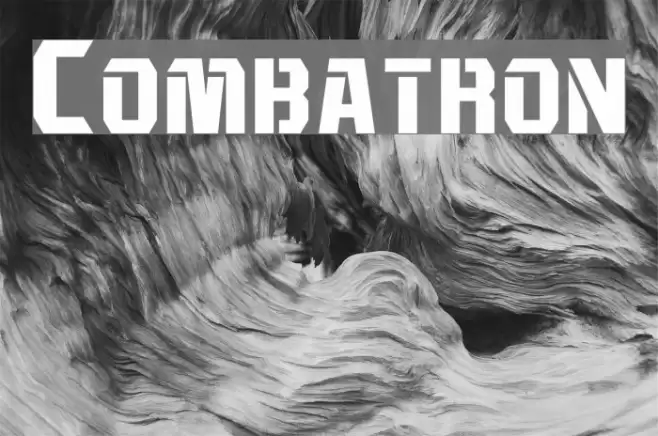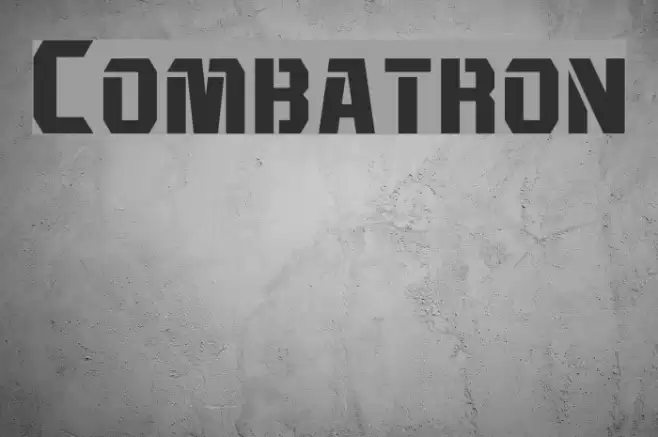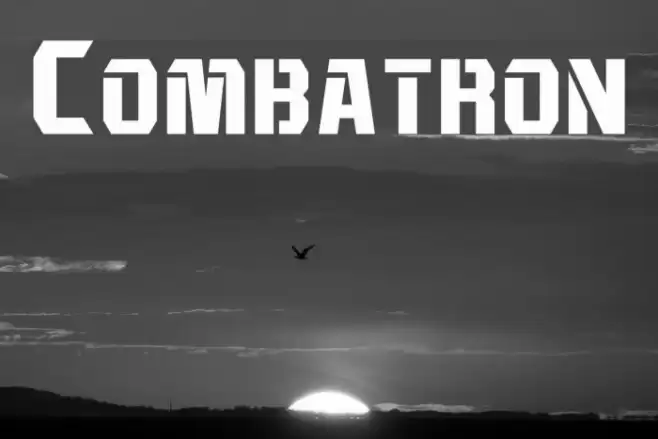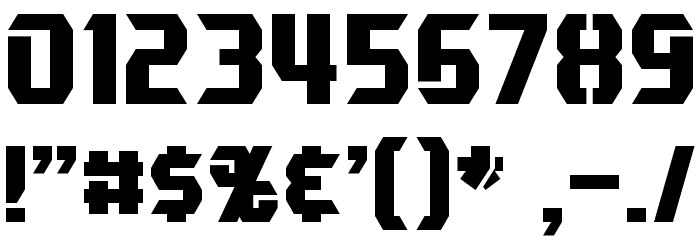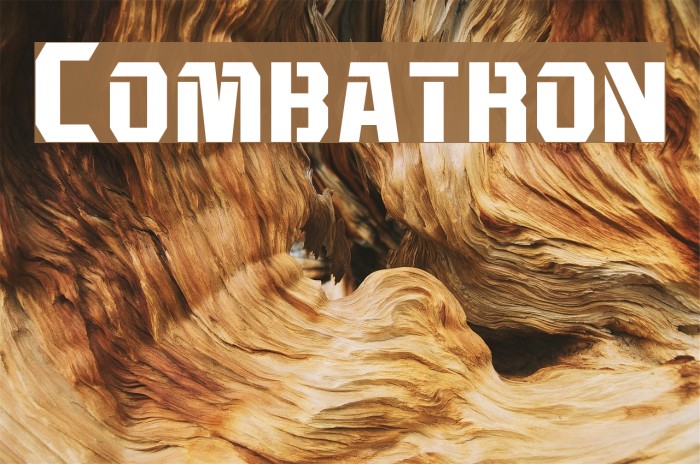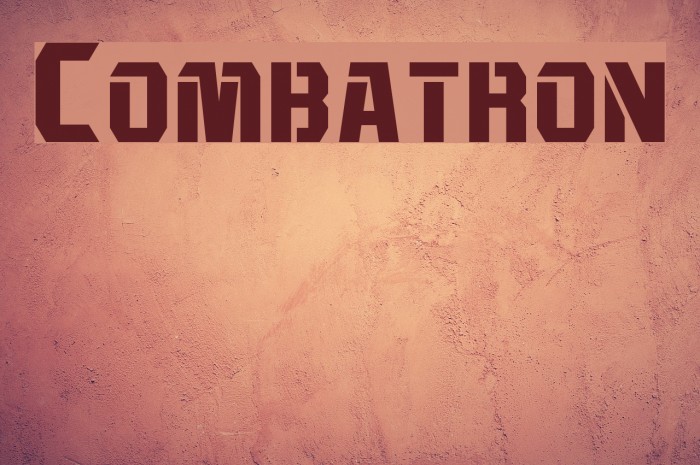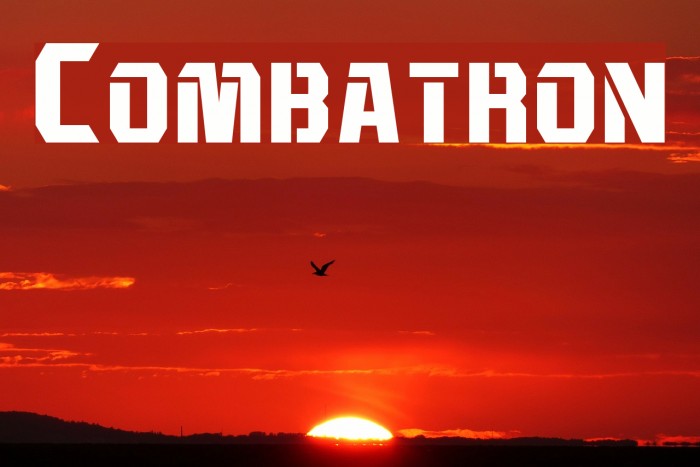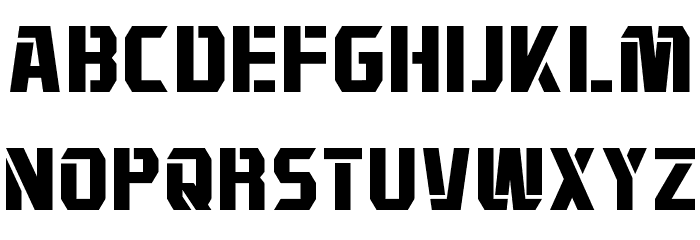
Combatron Font
Combatron Description
This font features a bold, angular design with a futuristic and mechanical aesthetic. The characters are constructed with sharp edges and geometric shapes, giving it a strong and impactful presence. The uppercase and lowercase letters maintain a consistent style, while the numbers and special characters complement the overall design. The font's structure is reminiscent of industrial and sci-fi themes, making it suitable for projects that require a modern and edgy look.